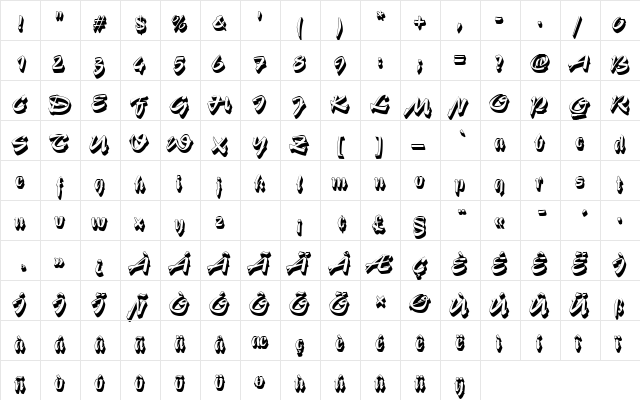
Stentor Shadow Regular
Design Context for Stentor Shadow Typeface
Stentor Shadow is built around its visual character rather than neutral utility — its distinctive forms are designed to make an impression at display sizes.
Font Pairing: Pair with a clean neutral sans-serif for body copy to let Stentor Shadow's character lead without overwhelming the composition.
Pro Tip: Treat Stentor Shadow as the centrepiece of your typographic hierarchy. One strong heading set in a decorative face can carry an entire layout.